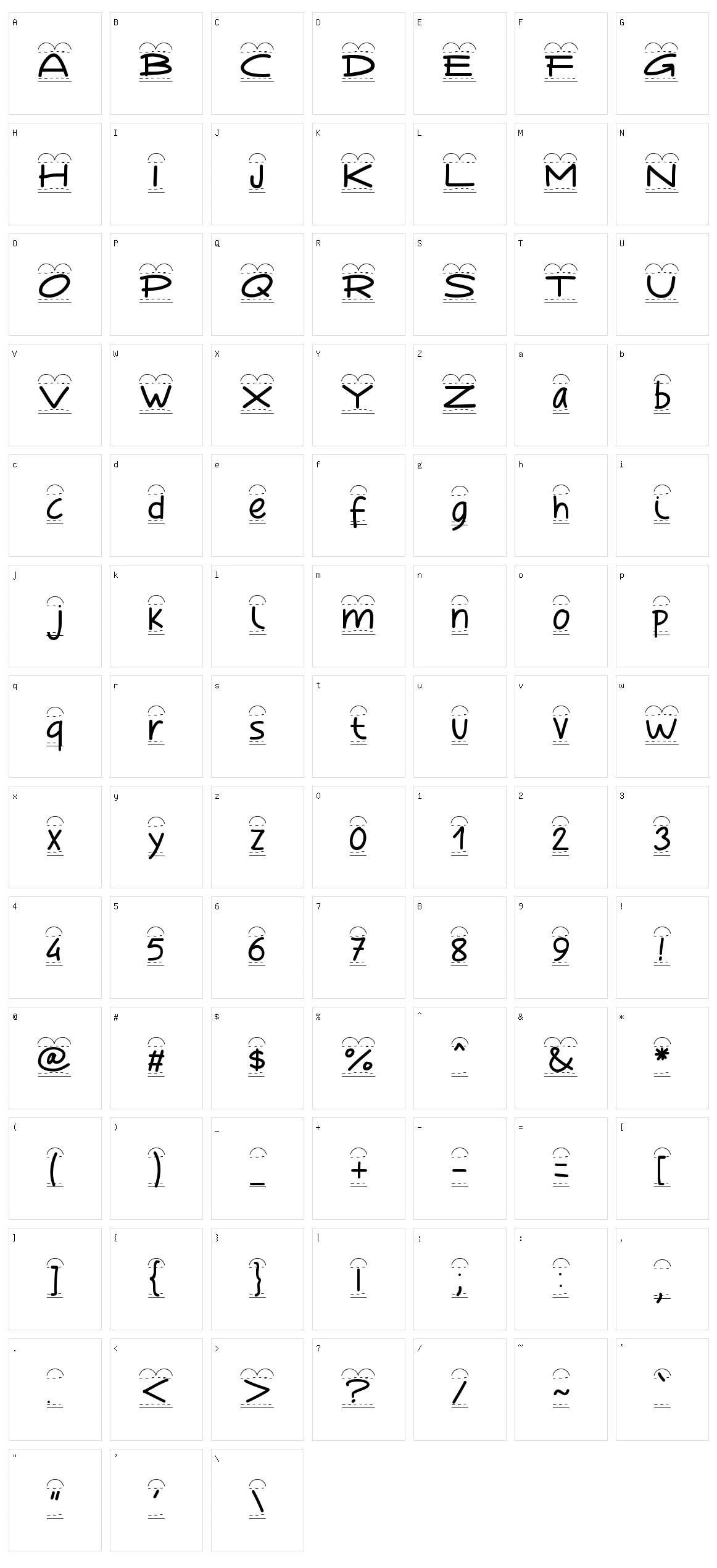
The free font PW Broderie is carefully designed by Peax Webdesign, showcasing a thoughtful balance of creativity and usability and falls under the Decorative font style. When you download the ZIP file, it contains only 28.74 KB of font files, making it lightweight and quick to download. Please review the license details below to understand permitted usage and distribution rights. If license information is not available, we recommend using this font for personal projects only or contacting the author directly for commercial usage permissions.